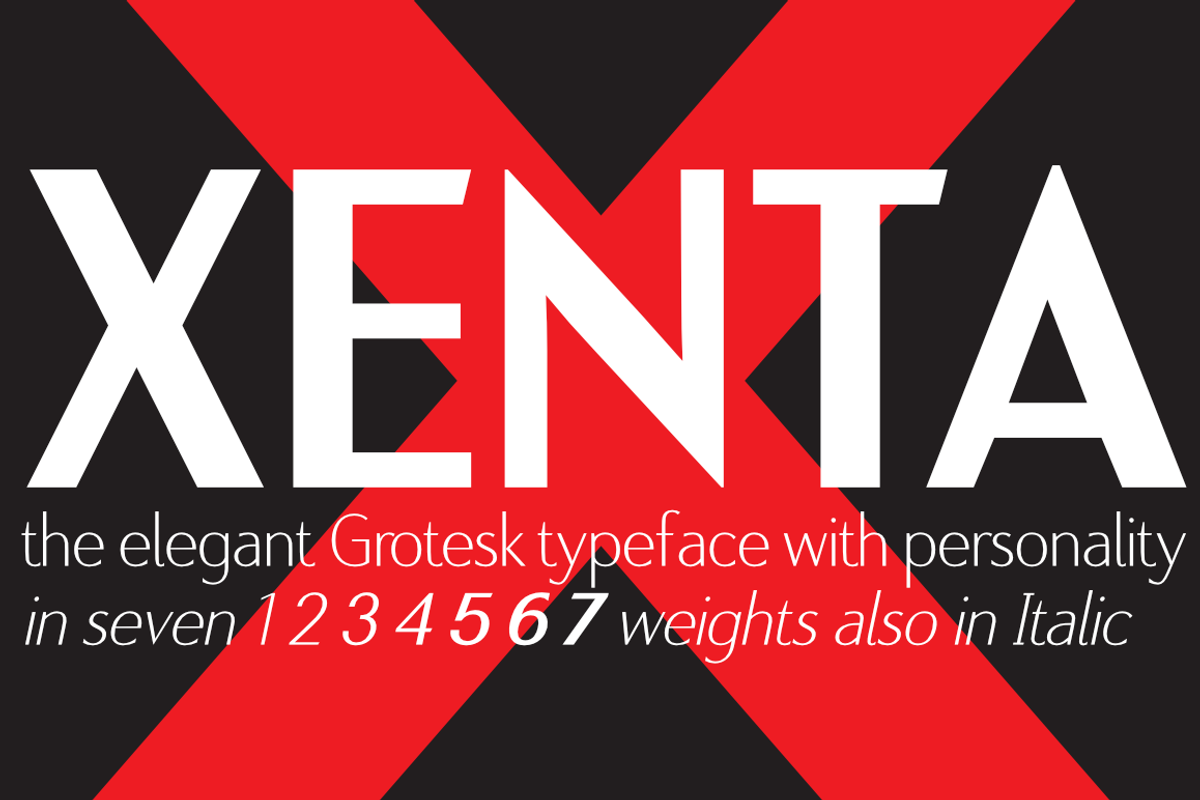
Xenta Sans Fonts Free Download is a clean and modern sans-serif typeface designed with simplicity and legibility in mind. Offering a versatile range of weights and styles, Xenta Sans is perfect for branding, web design, editorial layouts, packaging, and corporate materials. Its sleek and professional look makes it suitable for both digital and print applications.
The geometric structure and balanced proportions of Xenta Sans ensure that it works well for headlines, body text, logos, and more, making it a reliable choice for a wide range of design projects.